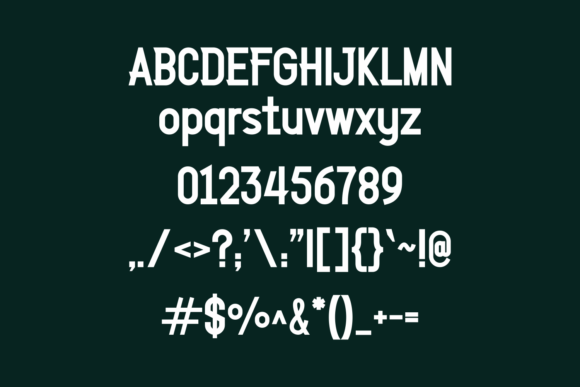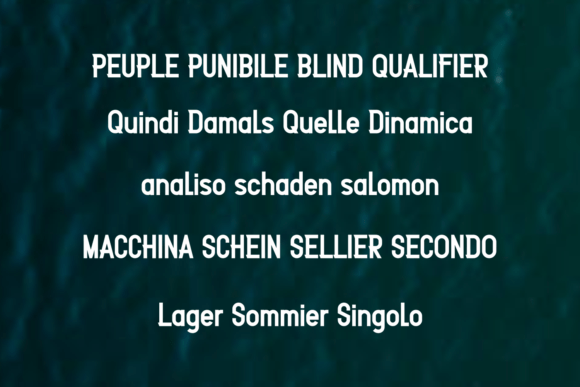
Discover the Cool and Unique Boranda Font: Elevate Your Designs with its Modern Sans Serif Style
Are you tired of using the same old fonts in your designs? Look no further! Boranda Font is here to revolutionize your typography with its cool and unique sans serif style. This modern font is perfect for designers and crafters who want to add a touch of sophistication and elegance to their creations. In this article, we’ll dive into the world of Boranda Font, exploring its features, benefits, and uses, and why it’s an incredible asset to your fonts’ library.
What is Boranda Font?
Boranda Font is a sans serif font that boasts a fresh and modern design. Its clean lines, simple shapes, and rounded edges give it a friendly and approachable feel, making it perfect for a wide range of design projects. Whether you’re working on a logo, brochure, website, or social media graphics, Boranda Font is sure to make a statement.
Key Features of Boranda Font
- Unique and Cool Design: Boranda Font’s modern sans serif design sets it apart from other fonts. Its unique style is sure to grab attention and leave a lasting impression.
- Highly Versatile: This font can be used for a wide range of design projects, from logos and branding to websites and social media graphics.
- Easy to Read: Boranda Font’s clean and simple design makes it easy to read, even at small sizes.
- Customizable: With its wide range of weights and styles, Boranda Font can be customized to fit your design needs.
Benefits of Using Boranda Font
So, why should you choose Boranda Font for your designs? Here are just a few benefits of using this amazing font:
- Stand Out from the Crowd: With Boranda Font, you can create designs that stand out from the crowd and leave a lasting impression on your audience.
- Enhance Your Brand: This font’s modern and sophisticated design can help elevate your brand and give it a professional edge.
- Save Time: With its easy-to-read design and wide range of weights and styles, Boranda Font can save you time and effort in your design projects.
Who Can Benefit from Boranda Font?
Boranda Font is perfect for a wide range of designers and crafters, including:
- Graphic Designers: Add a touch of sophistication and elegance to your designs with Boranda Font.
- Web Designers: Use Boranda Font to create modern and responsive websites that engage your audience.
- Social Media Managers: Elevate your social media graphics and posts with Boranda Font’s cool and unique design.
- Crafters and Makers: Use Boranda Font to add a professional touch to your craft projects, such as labels, packaging, and branding.
How to Use Boranda Font
Using Boranda Font is easy! Here are a few tips to get you started:
- Pair it with Other Fonts: Experiment with pairing Boranda Font with other fonts to create unique and interesting typography combinations.
- Use it for Headings and Titles: Boranda Font’s bold and modern design makes it perfect for headings and titles.
- Customize it: Experiment with different weights and styles to customize Boranda Font to fit your design needs.